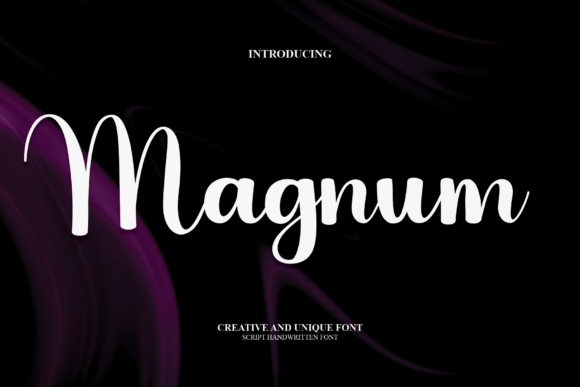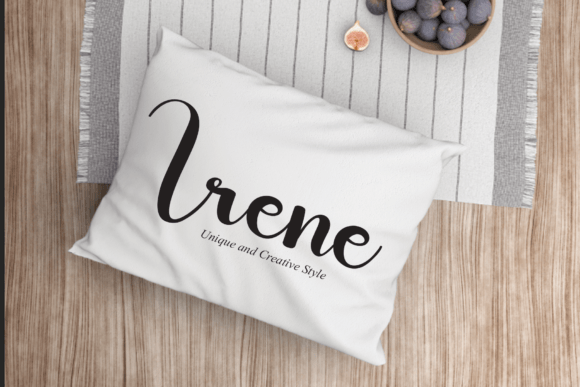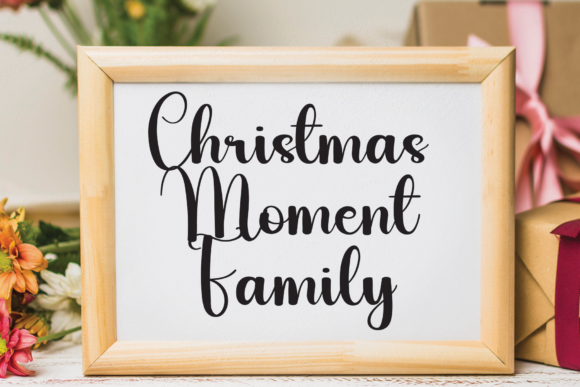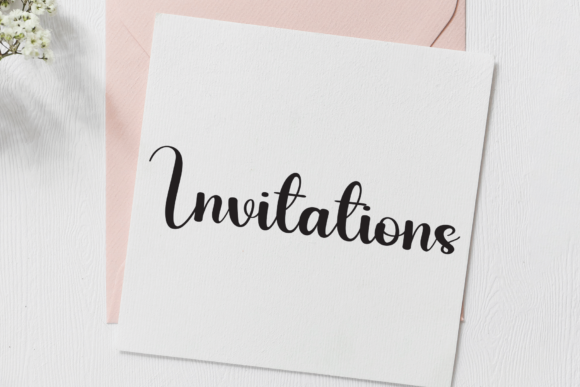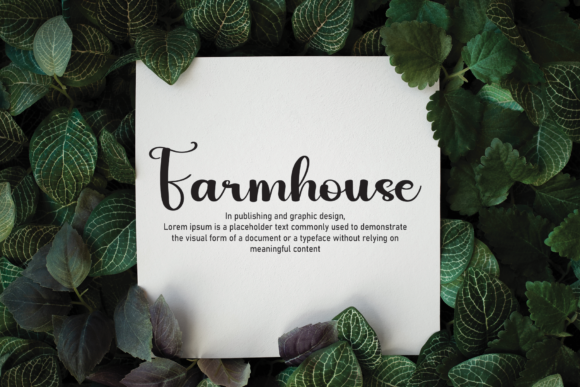
Magnum Font
“Magnum”: Elevate Your Designs with Modern Elegance and Handwritten Charm
Introducing “Magnum,” a modern handwritten script that effortlessly blends natural grace with contemporary style. This font is a perfect choice for extraordinary projects that demand a handwritten feel. Its versatility makes it ideal for a range of applications, including wedding invitations, thank you cards, quotes, greeting cards, logos, business cards, and any design that craves a customized touch.
The allure of “Magnum” lies in its natural and stylish appearance. The flowing script captures the essence of handwritten elegance, adding a touch of sophistication to your projects. Whether you’re aiming for a romantic wedding invitation or a memorable logo, this font adapts seamlessly, making every design feel personalized and refined.
The modern sensibility of “Magnum” ensures that it stands out in contemporary design landscapes. Its sleek lines and fluid strokes contribute to a look that is not only fashionable but also timeless. The font’s ability to strike a balance between modernity and handwritten charm makes it a versatile tool for a wide array of design projects.
Consider “Magnum” as your go-to choice for wedding invitations. Its loveliness enhances the romantic feel of such occasions, creating a visual narrative that complements the joy of celebration. Similarly, for thank you cards and quotes, the font adds a touch of sincerity, turning ordinary words into visual poetry.
When it comes to branding and business cards, “Magnum” becomes a signature element that communicates uniqueness and customization. The handwritten style adds a personal touch, making your brand more approachable and memorable. The versatility of this font ensures that it complements various industries and design aesthetics.
In essence, “Magnum” is more than just a font; it’s a design asset that transforms ordinary projects into extraordinary ones. Its modern handwritten script brings a touch of elegance and individuality to every stroke, making it a perfect choice for a diverse range of design needs. Elevate your projects with the natural, stylish, and personalized charm of “Magnum.”